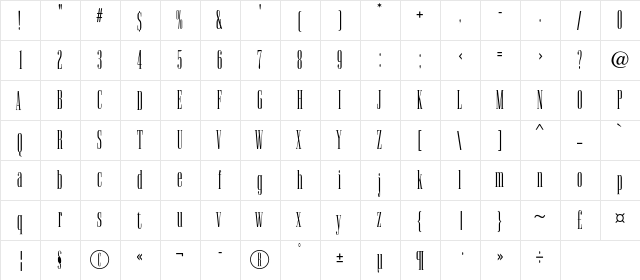
CamertonC Regular
Design Context for CamertonC Typeface
CamertonC offers clean, dependable letterforms without strong stylistic allegiance, making it a practical choice for designers who need flexibility.